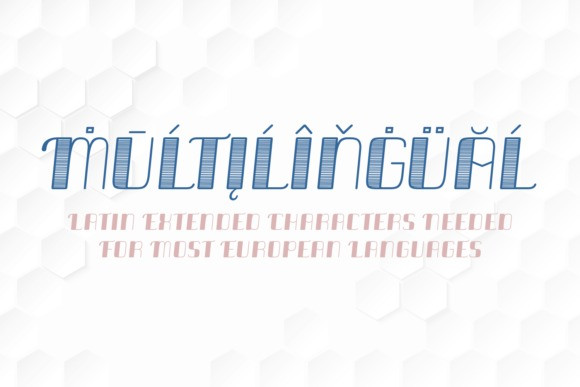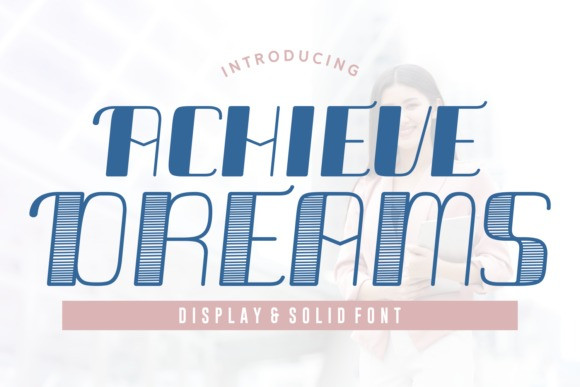
Achieve Dreams Typeface
Achieve Dreams Typeface  is a cool, interesting and modern display font. It will elevate a wide range of crafting ideas, from cards, to branding, labels and much more.Add this font to your favorite creations and let yourself be amazed by the outcome generated.